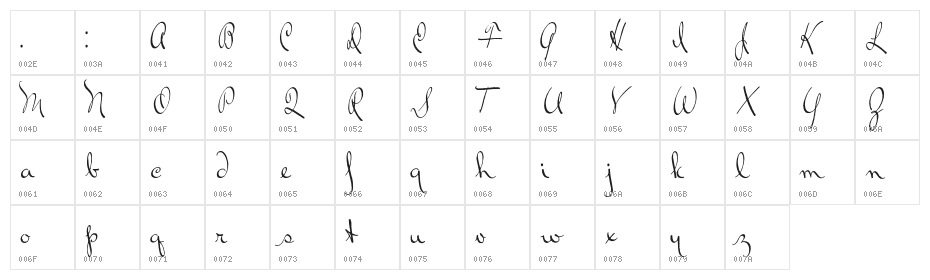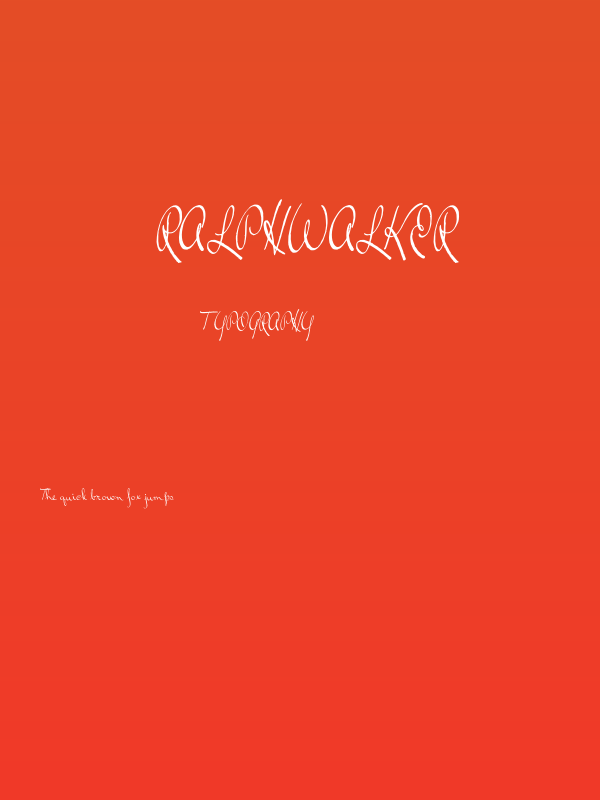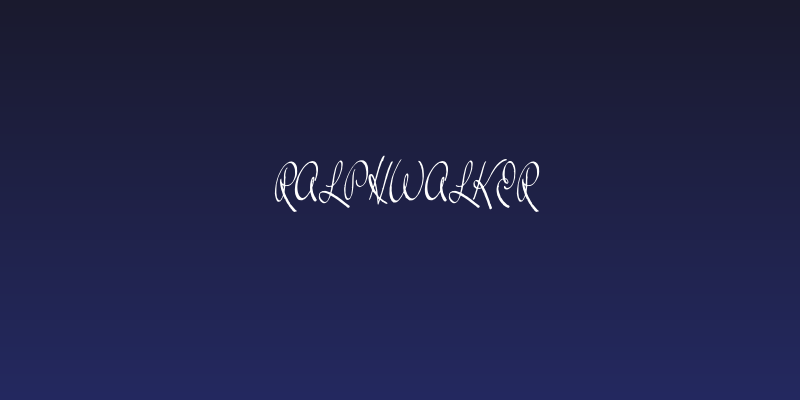
RalphWalker Font
RalphWalker Description
This font features an elegant and flowing script style, characterized by its cursive and calligraphic nature. The letters are interconnected with smooth, sweeping strokes that give it a sophisticated and artistic appearance. The uppercase letters are ornate and slightly larger, while the lowercase letters maintain a consistent flow. The overall design is reminiscent of traditional handwriting, with a modern twist that adds a unique flair. The font's delicate curves and loops make it suitable for projects that require a touch of elegance and creativity.
| Overall Style | Elegant, Artistic |
| Use Case | Logos, Invitations, Artistic designs |
| Proposed Projects | Ideal for wedding invitations, greeting cards, personal branding, and artistic projects. |